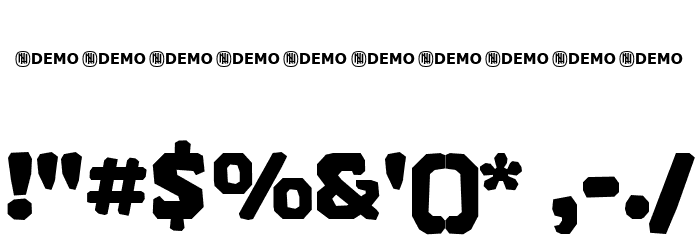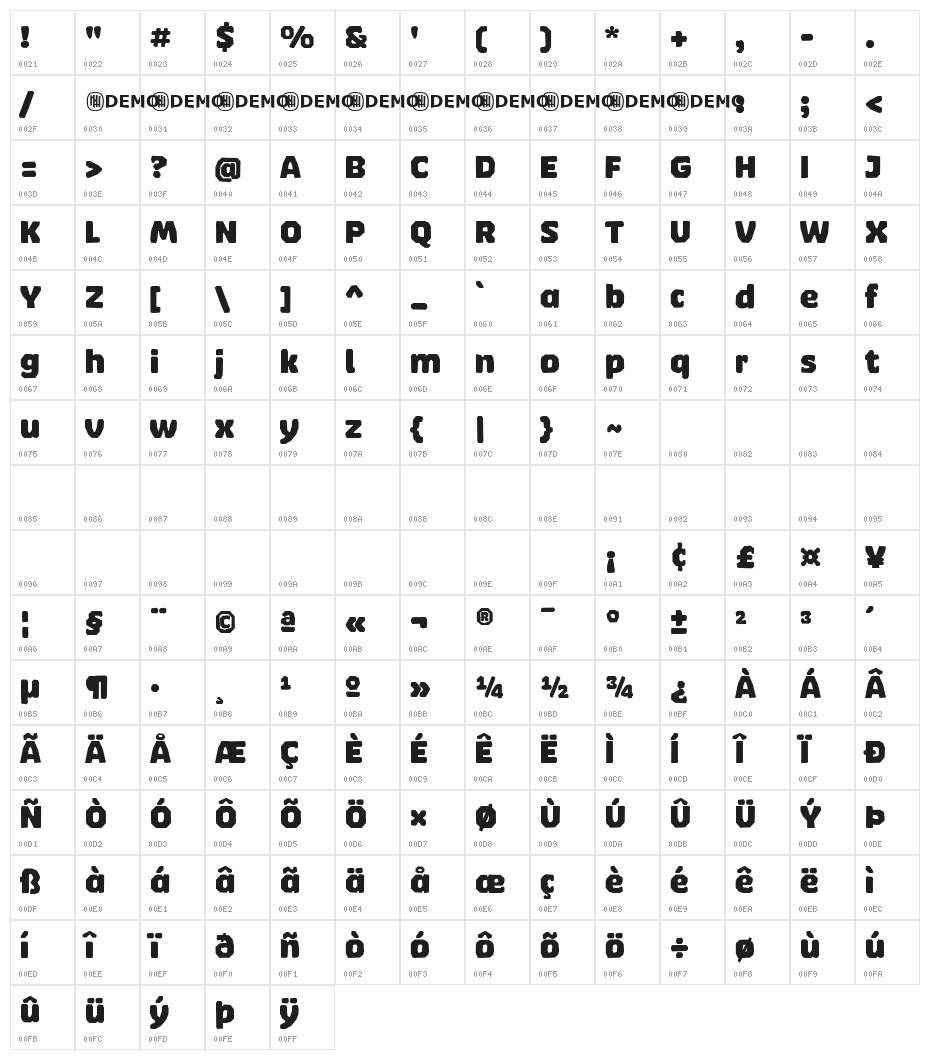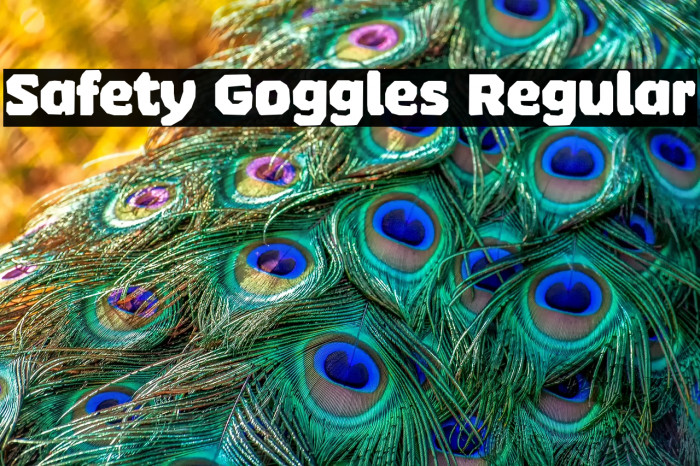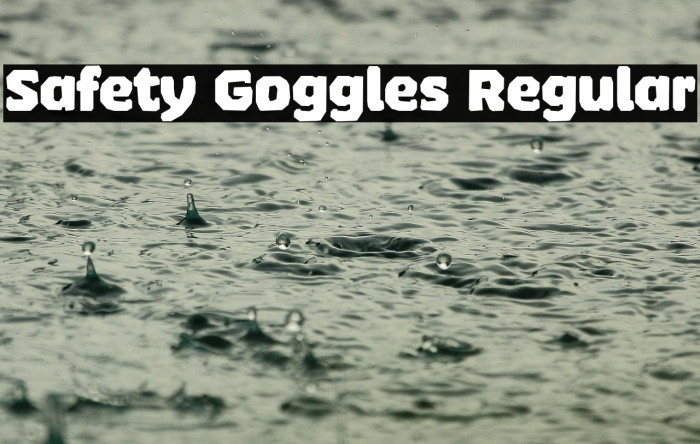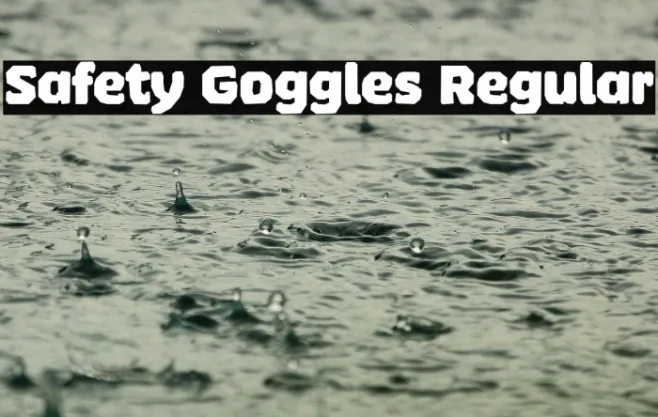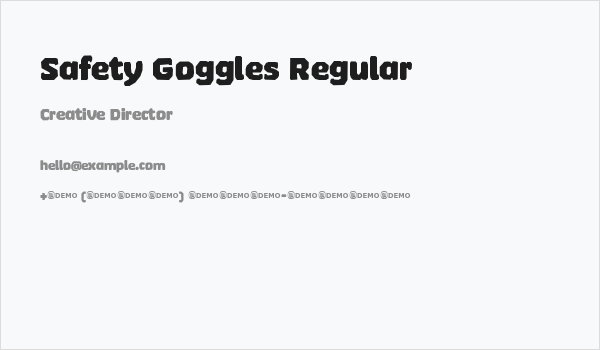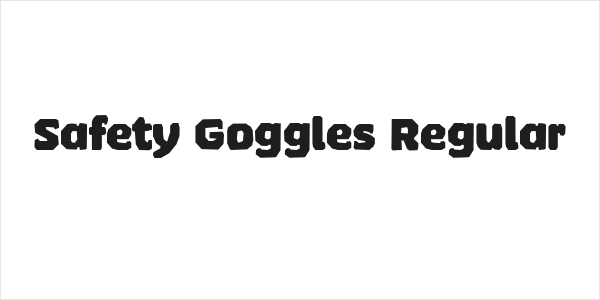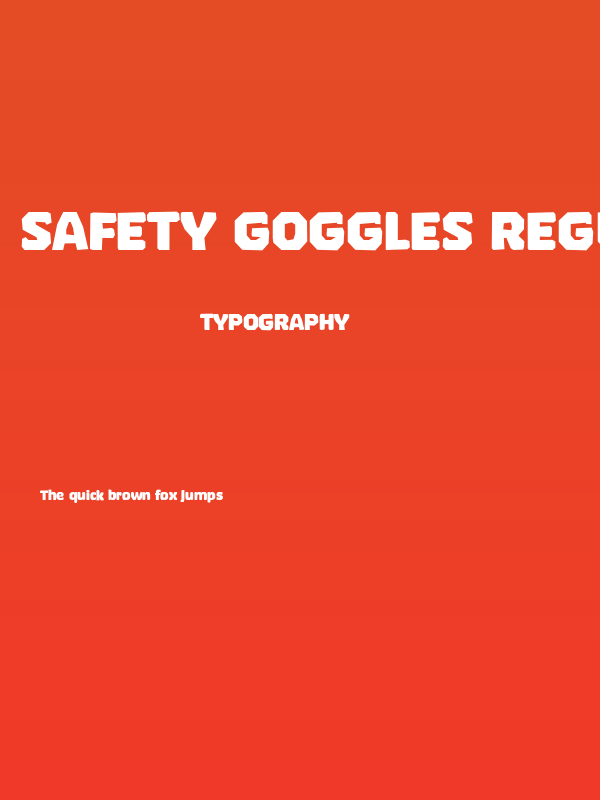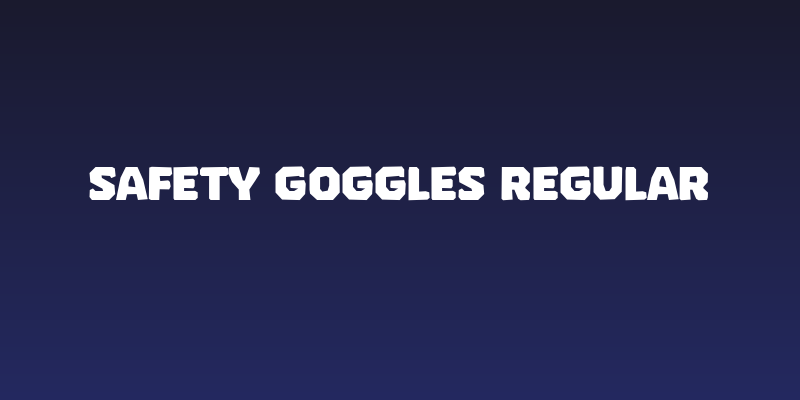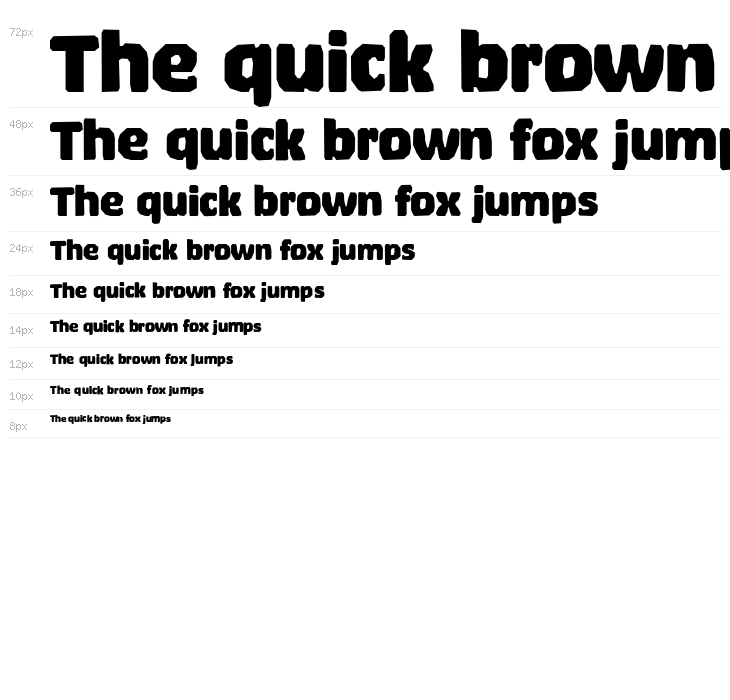
Safety Goggles Regular Font
Safety Goggles Regular Description
This font features a bold and rugged design, characterized by its thick, blocky letters with slightly irregular edges that give it a hand-cut appearance. The uppercase and lowercase letters maintain a consistent weight, contributing to a strong visual impact. The numerals and special characters share this robust style, ensuring uniformity across all elements. The font's distinctiveness lies in its ability to convey a sense of strength and durability, making it suitable for projects that require a bold statement. Its unique style is both eye-catching and memorable, ideal for creating a lasting impression.